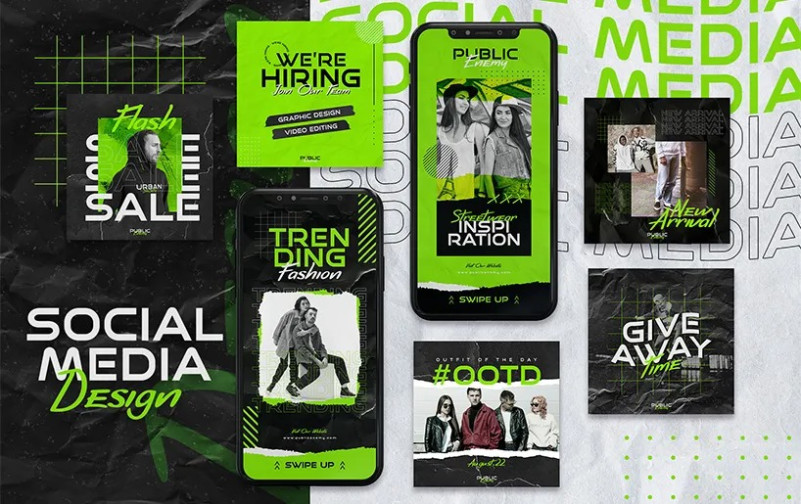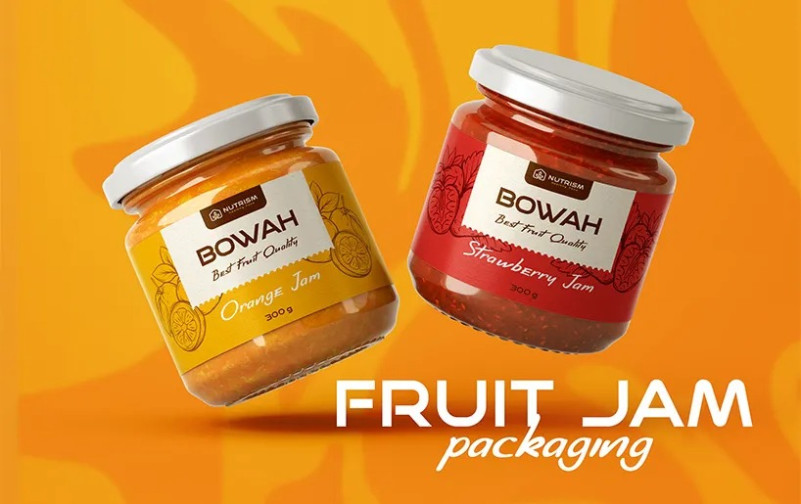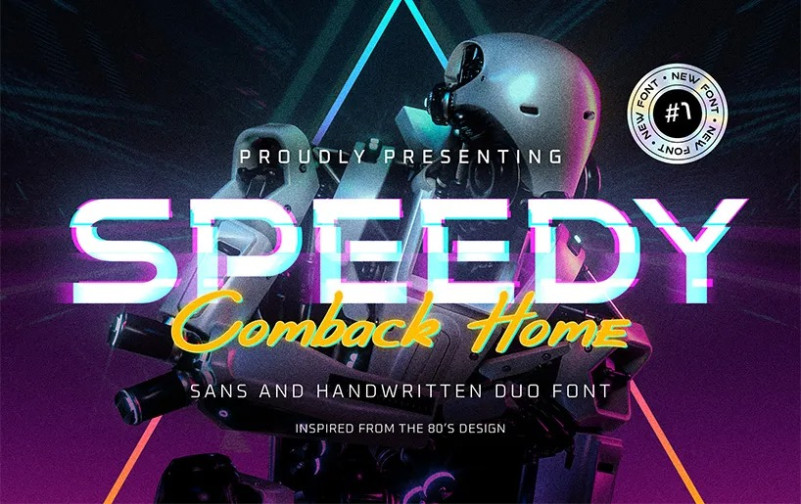
Comback Home Font
Combackhome is a duo font in one package, influenced by Tom Holland’s Spider-Man movies (Homecoming, Far From Home, and No Way Home).
This font is an alternative to the font used in the Spiderman Series or Spiderman font on Sony ps3.
We can use Combackhome font to design logos, posters, banners, and almost any text we want.
With Combackhome font, we can design our products, logo, banner, and containers easily. No need to worry that this font will be out of place when we use it.
Social media is where this font glows the most. Because of how modern and aesthetic this font looks, the Combackhome font will catch people’s attention. We can also use this font in after effects to make it look much better.